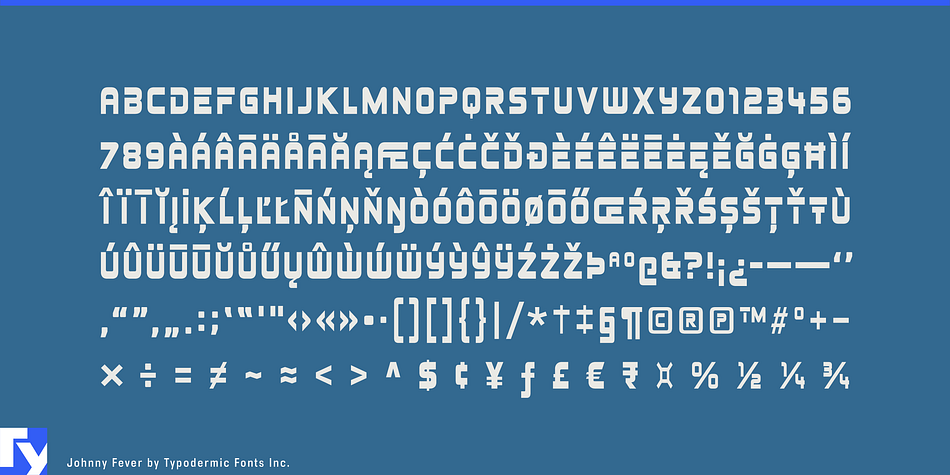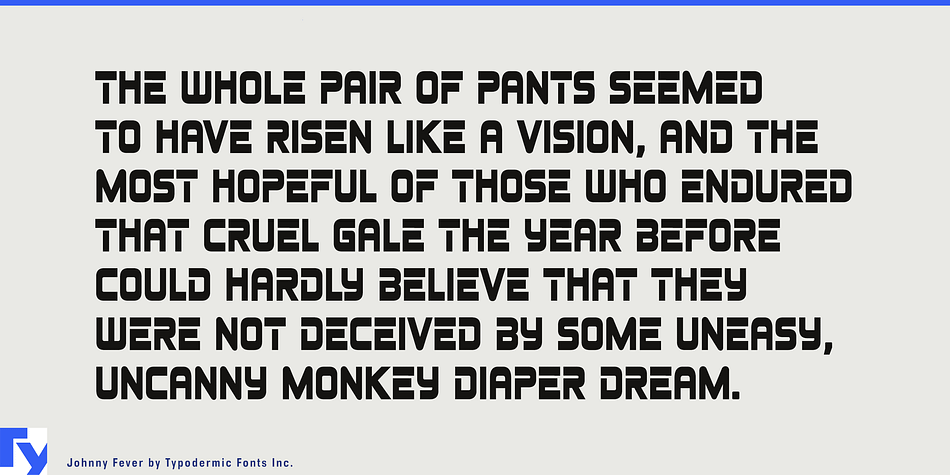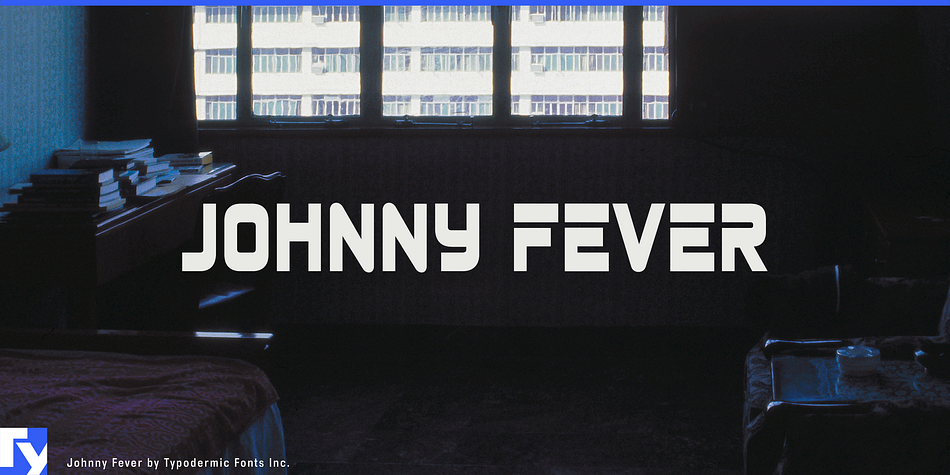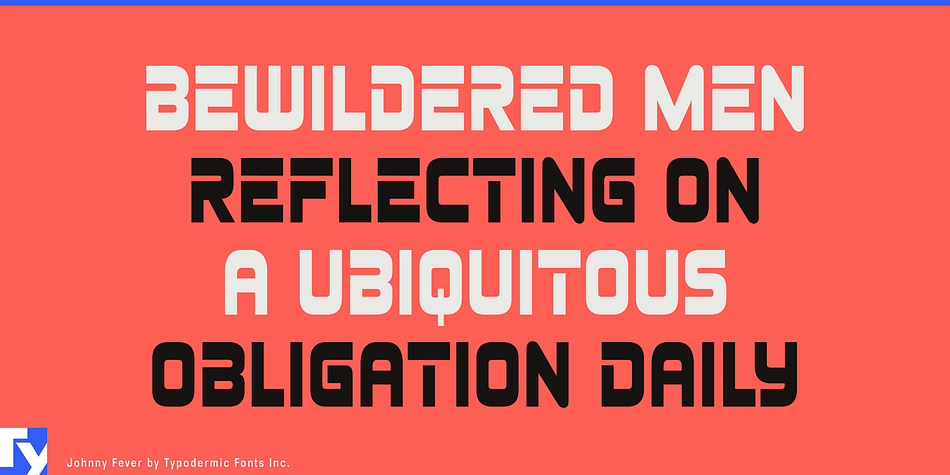
Johnny Fever is a display sans font published by Typodermic Fonts Inc.
Johnny Fever is a 1980s-style swash cap, retro font inspired by Amiga 4K demos.